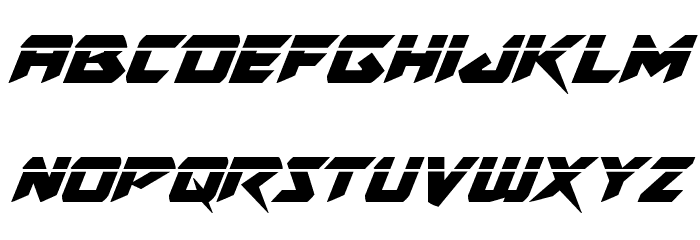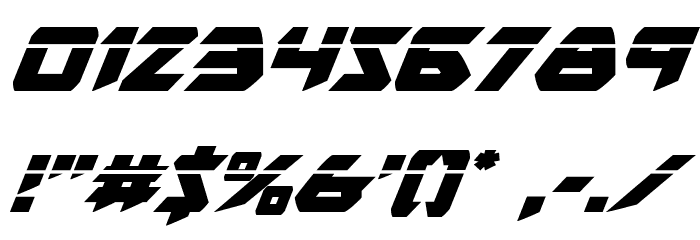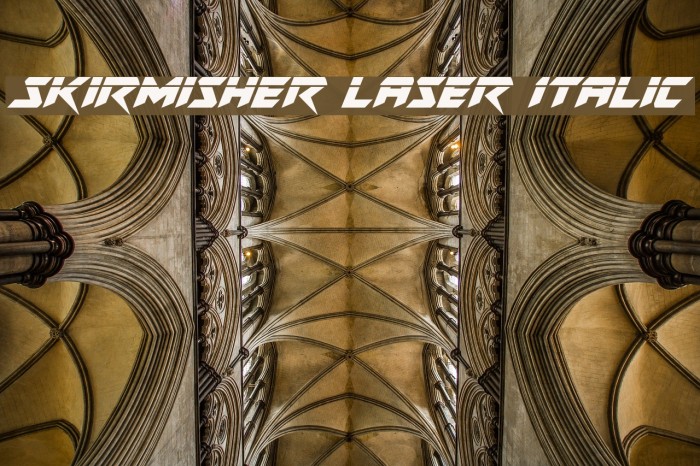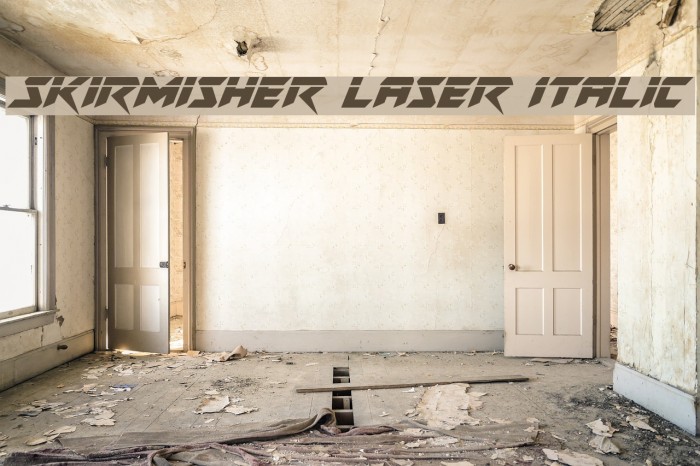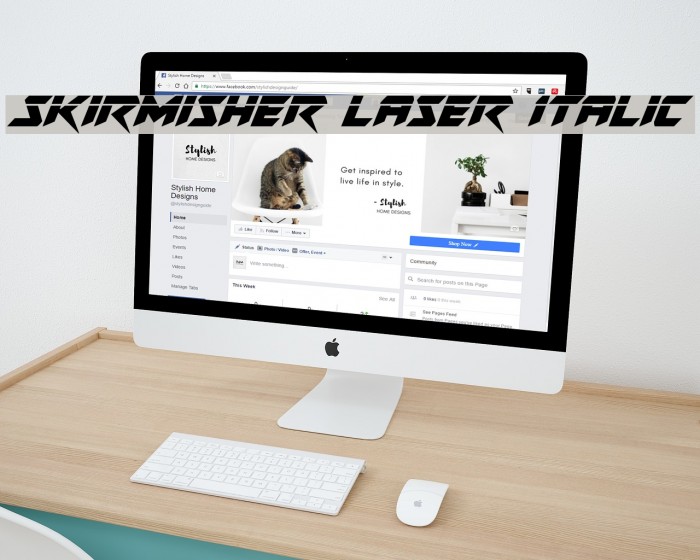
Skirmisher Laser Italic Font
This font features a bold and futuristic design with sharp, angular edges and a dynamic, italicized slant. The characters are constructed with a distinct geometric style, giving them a high-tech, aggressive appearance. The uppercase and lowercase letters maintain a consistent aesthetic, with exaggerated points and cuts that create a sense of movement and energy. The numerals and special characters follow the same design principles, ensuring a cohesive look across all elements. This font is ideal for projects that require a modern, edgy feel, such as video game titles, tech branding, or sci-fi themed designs.
A bold, futuristic font with sharp, angular edges and an italicized slant.
- Proposed Projects: Ideal for video game titles, tech branding, and sci-fi themed designs.